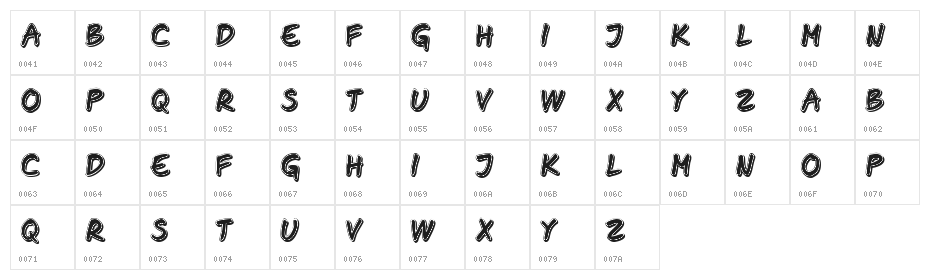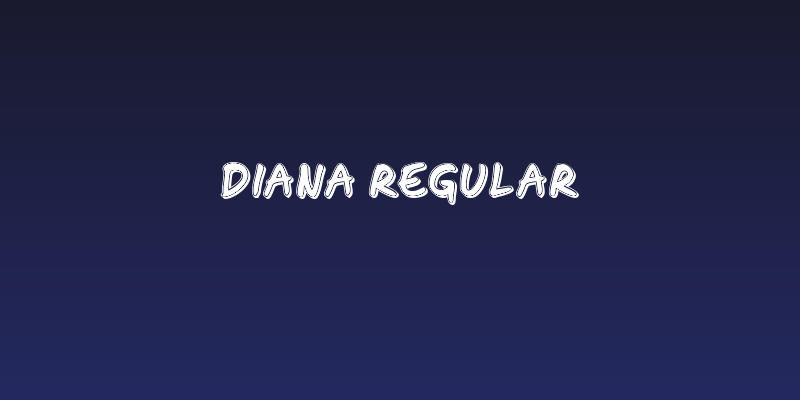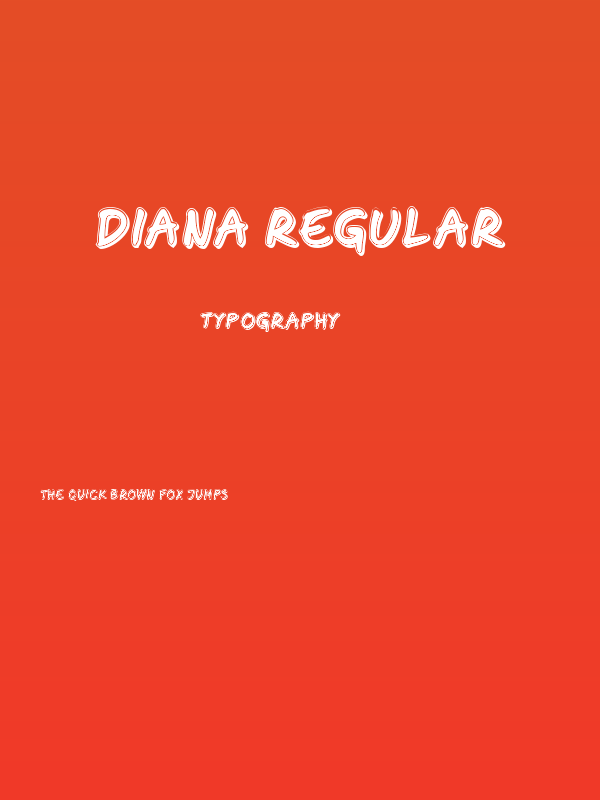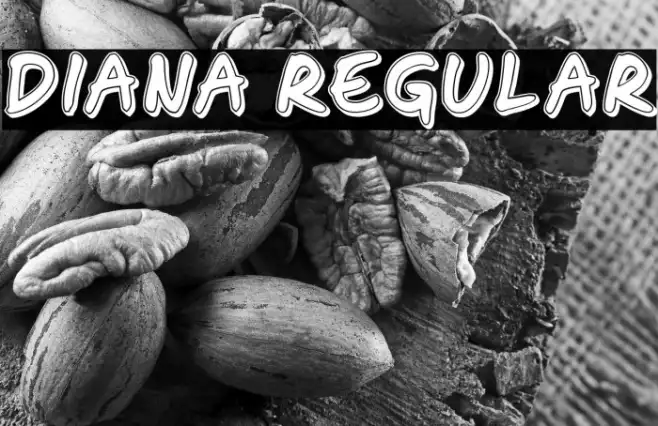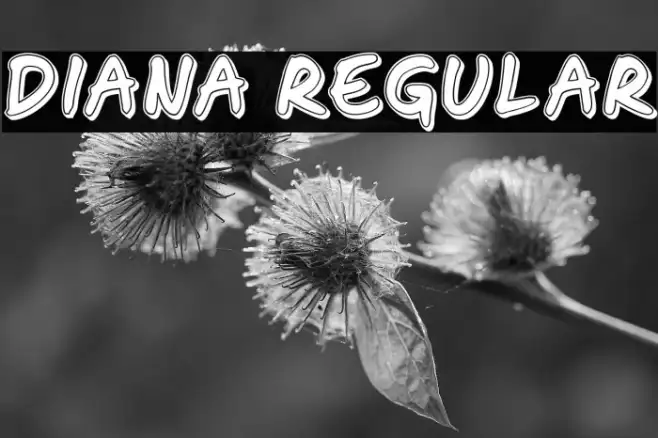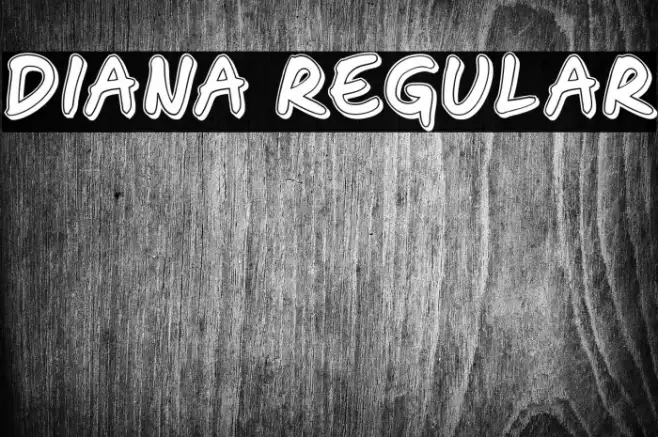
Diana Regular Font
Diana Regular Description
This font features a bold, playful style with a thick outline that gives each character a three-dimensional effect. The letters are rounded and slightly slanted, adding a dynamic and energetic feel. The uppercase letters are consistent in height, while the lowercase letters maintain a uniform baseline, enhancing readability. The font's unique design is suitable for eye-catching displays and creative projects. Its bold presence makes it ideal for headlines, posters, and branding materials where a fun and engaging look is desired.
| Overall Style | Playful, Modern |
| Use Case | Headlines, Posters, Branding |
| Proposed Projects | Ideal for posters, headlines, branding, and creative projects requiring a fun, engaging look. |